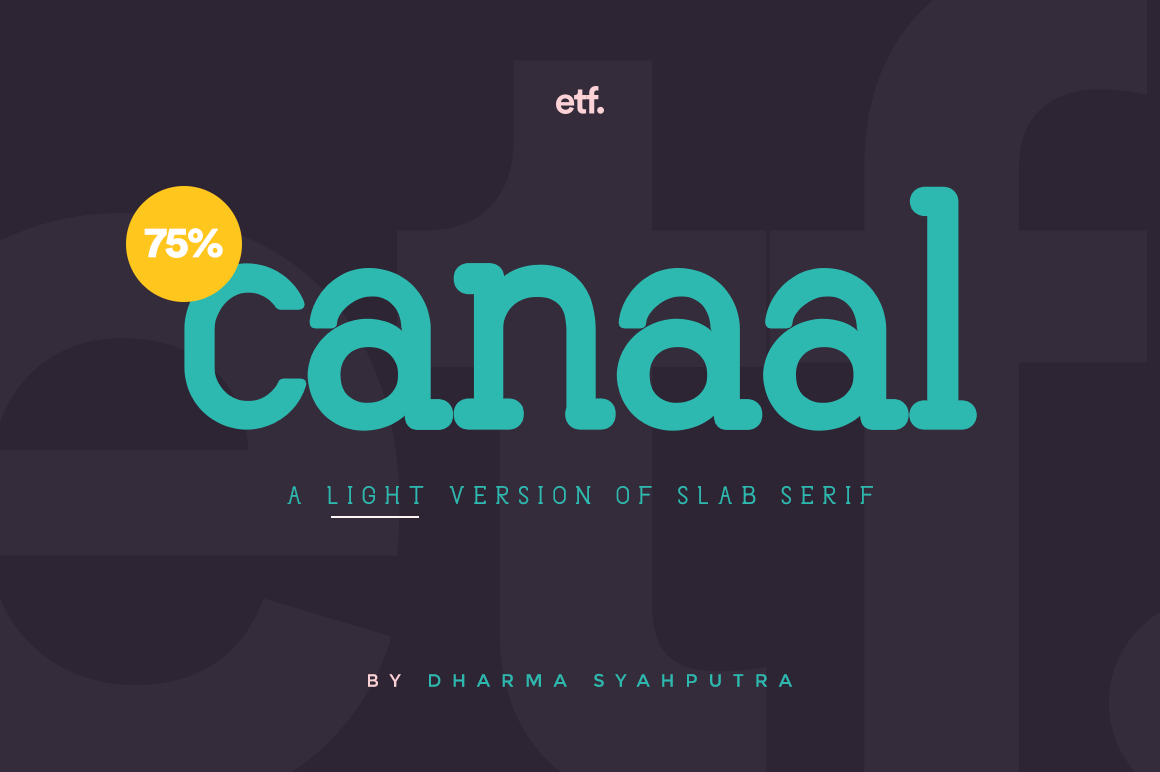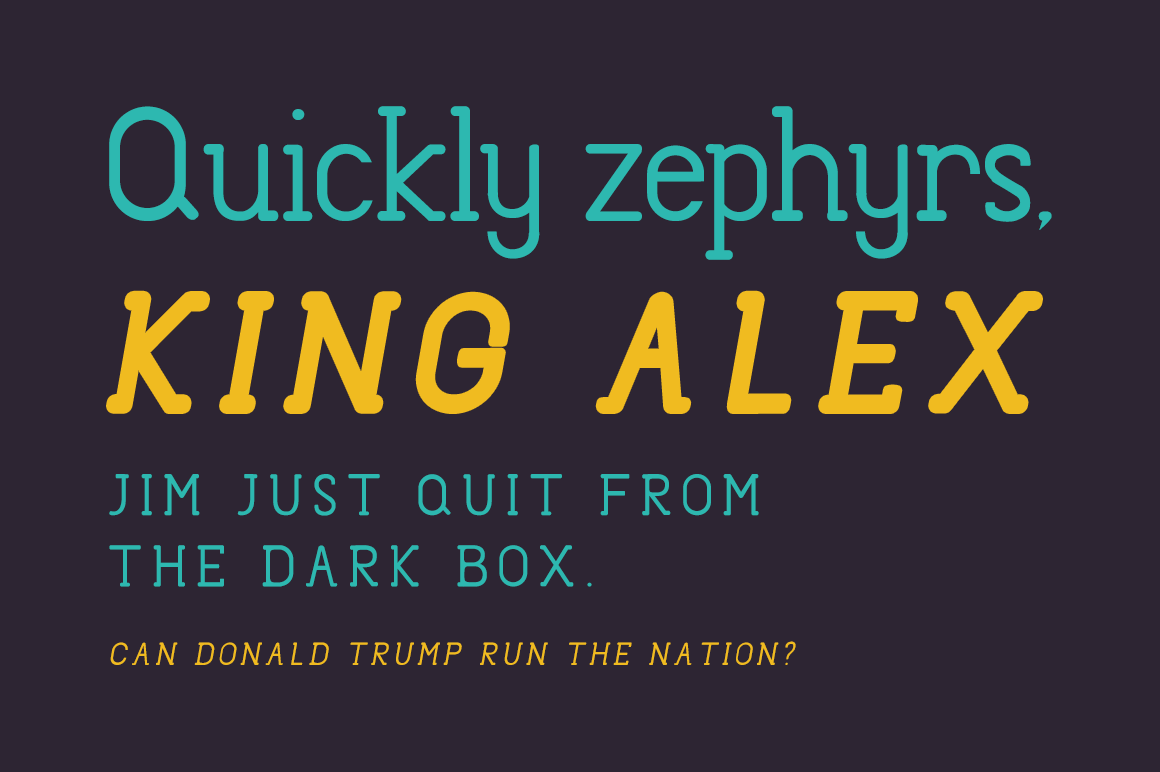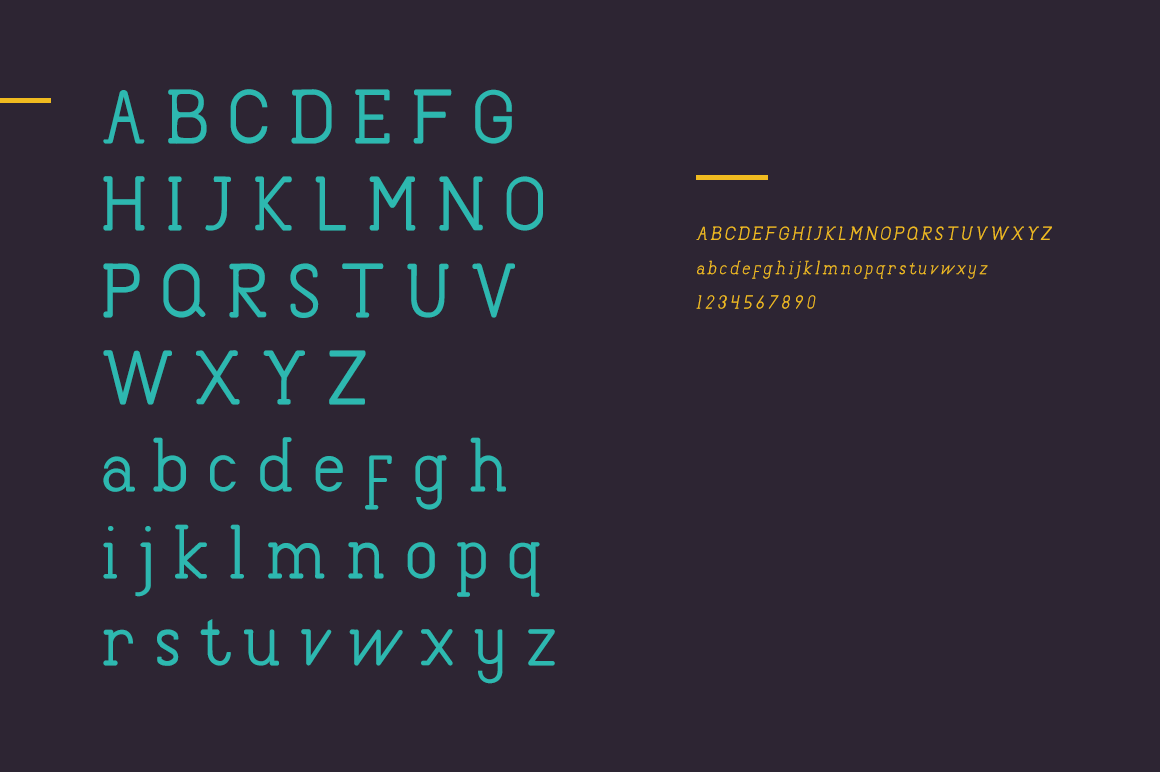
Canaal Slab Light
Canaal Slab Light Font
Canaal is friendly and eye-catching in lowercase, strong and elegant in uppercase. Rocklike lines and corners mixed up with rounded letterforms leave you in a cozy atmosphere completely satisfied by your design.